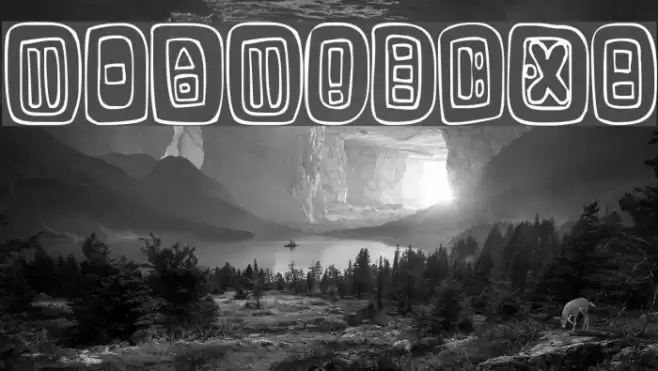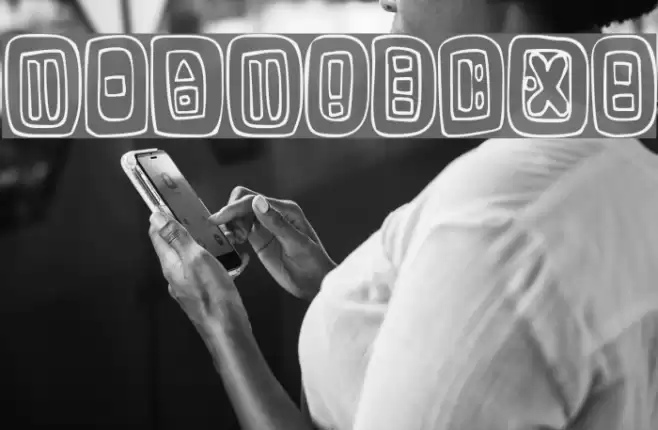
FE-NaturalSigns Font
FE-NaturalSigns Description
This font features a playful and abstract design, with each character enclosed within a rounded square. The characters themselves are composed of various geometric shapes and patterns, creating a unique and artistic appearance. The style is reminiscent of hand-drawn doodles, with an emphasis on creativity and individuality. The overall look is casual and informal, making it suitable for projects that require a fun and whimsical touch. The font's distinct style ensures that it stands out, making it ideal for eye-catching designs.
A playful, abstract font with geometric shapes in rounded squares from Dingbats fonts.
- Proposed Projects: Ideal for children's books, creative posters, and playful branding.
- Use Case: Logos, Posters, Creative Projects